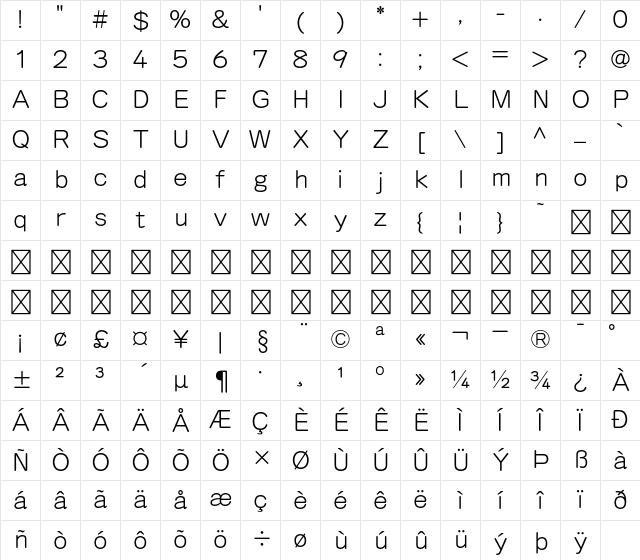
A-OTF Kyoukasho ICA Pro R
Style: R
Complete A-OTF Kyoukasho ICA Pro R glyph index. Displaying only characters natively supported by A-OTF Kyoukasho ICA Pro R font.
Design Context for A-OTF Kyoukasho ICA Pro
A-OTF Kyoukasho ICA Pro is a composed and adaptable typeface that performs quietly and consistently across a wide range of design contexts.